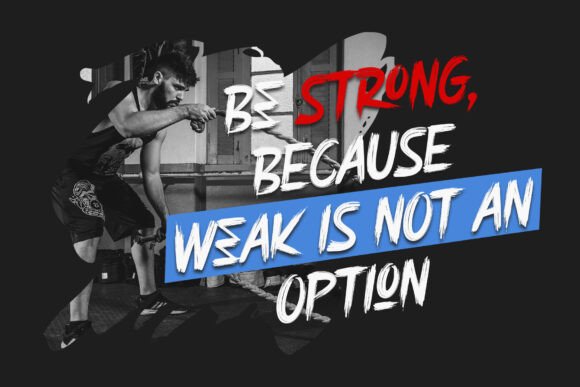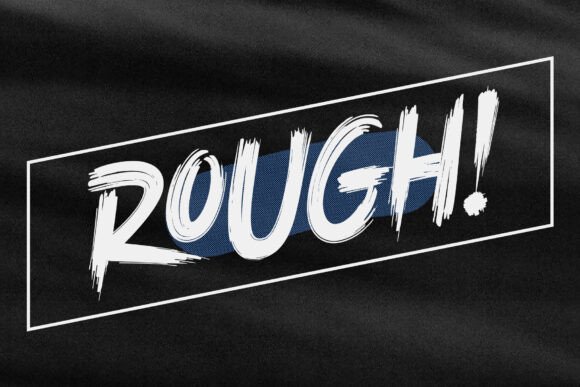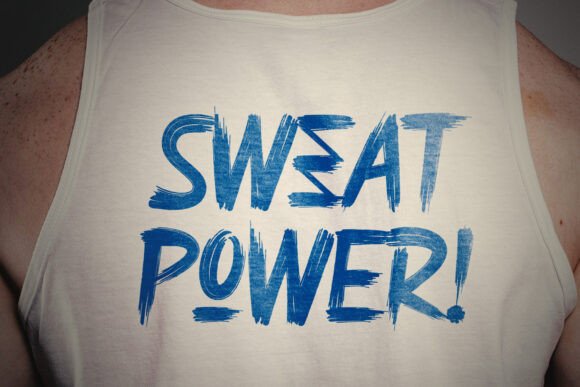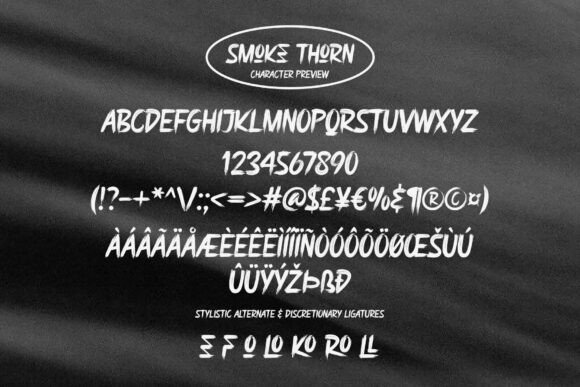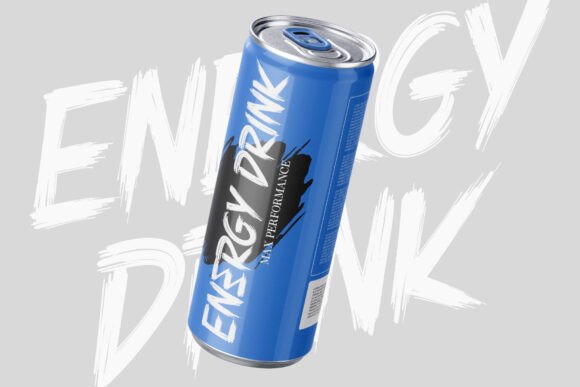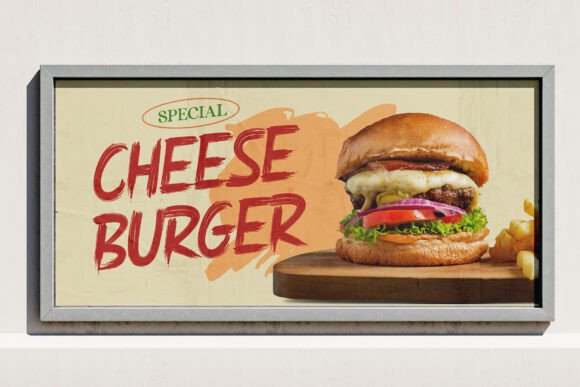
Introduction to Smoke Thorn Font
Have you ever been working on a creative project, and you just can’t seem to find the right font to bring your idea to life? Maybe you’ve scrolled through countless design resources, only to end up with a generic, uninspiring option. I know the feeling. But what if I told you that there’s a font out there that can add a bold, edgy touch to your design?
Enter the Smoke Thorn Font, a brush font that’s perfect for designers who want to make a statement. With its rough style and sharp texture, this font is sure to deliver a striking impression that will leave your audience wanting more.
Key Features of Smoke Thorn Font
- High-quality, unique design for creative projects, making it an excellent design resource.
- Includes a detailed character map, with a total of 150 glyphs, including uppercase and lowercase letters, numbers, and special characters.
Honest Review: Smoke Thorn Font
I recently stumbled upon the Smoke Thorn Font and I must say it’s a great addition to any design resource collection. This beautiful font has a lot to offer, especially when it comes to creating a unique and creative project.
- ✨ Unique design style that sets it apart from other fonts.
- ✨ High quality and clear typography, perfect for printing or digital use.
- ✨ Transparent background, making it easy to use with any design element.
- ⚠️ Limited character set, which might not be suitable for longer texts.
- ⚠️ Some letters may not render well on certain devices or screens.
Overall, I’m impressed with the Smoke Thorn Font and I think it’s a great choice for designers looking to add a touch of elegance to their projects. While it may have some limitations, the benefits far outweigh the drawbacks. With a little creativity, this font can help bring your designs to life.
Tips for Getting the Most Out of Smoke Thorn Font
Experiment with different font sizes, colors, and combinations to achieve a unique design aesthetic.
The Smoke Thorn Font is suitable for various design projects, including:
- Typography-based art